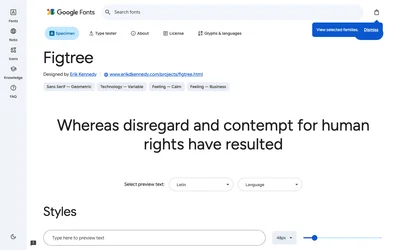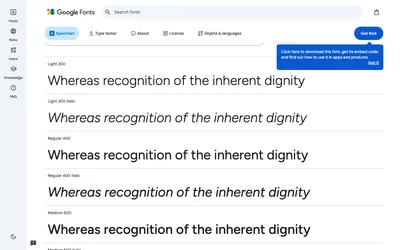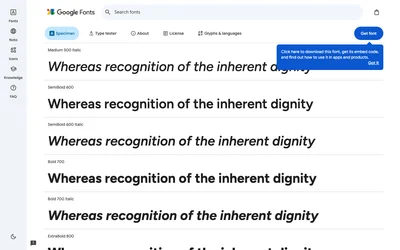
Figtree vs Google Sans
Figtree and Google Sans are both sans-serif typefaces sharing a geometric foundation. Where Figtree leans warm, Google Sans brings tech. Compare which suits your Ui project.
Figtree
Geometric
ModernWarm
Google Sans
Geometric
Modern
Tech
Figtree
Google Sans
| Feature | Figtree | Google Sans |
| Variable Font | Yes | Yes |
| Weights | Variable | Variable |
| Language Support | latin, latin-extended | latin, latin-extended, cyrillic, greek |
Weight & Style Coverage
Figtree: Variable (100-900)
Google Sans: Variable (100-900)
Recommended: Figtree
- warm design character
- Suited for Apps
Consider: Google Sans
- tech design character
- Suited for Corporate